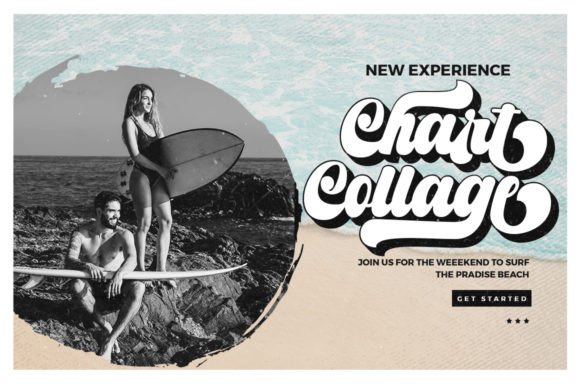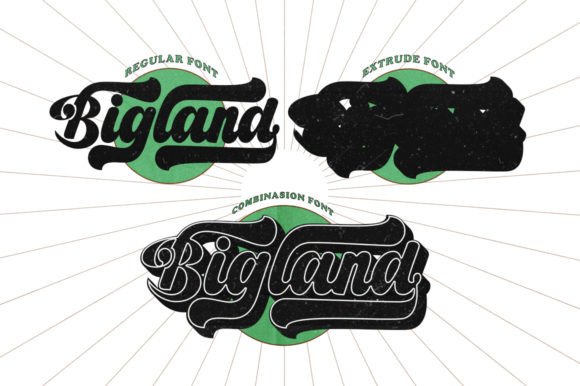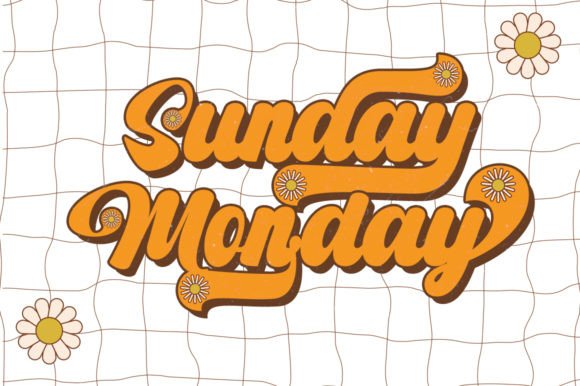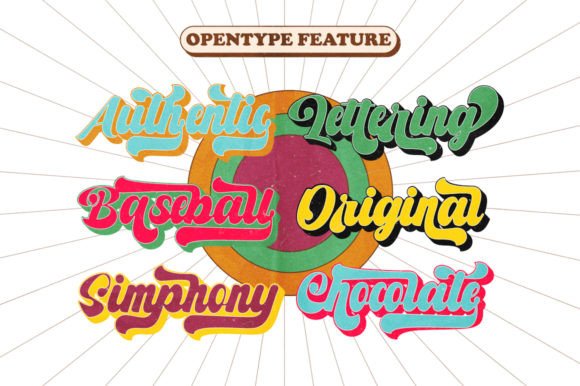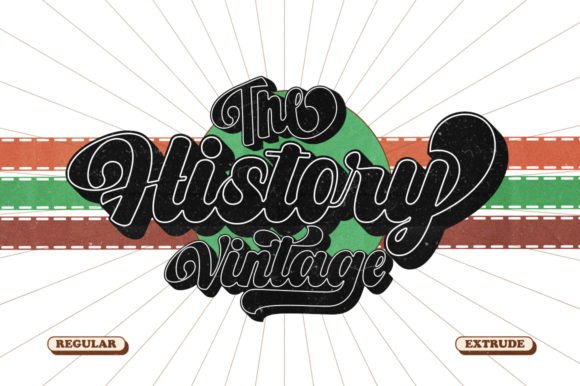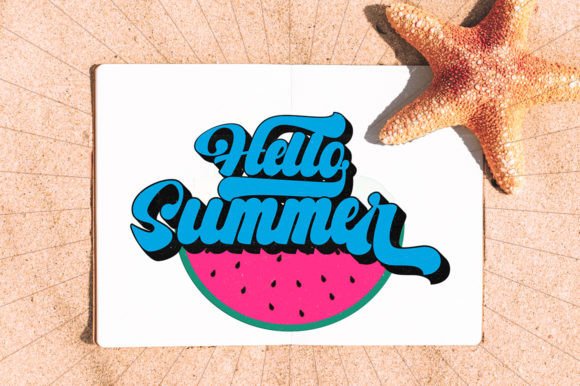
The Retro Revival: Bigland Retro Font Takes Center Stage
This urban retro font has a style reminiscent of logotype lettering, and it’s been a game-changer for my design projects ever since. In this article, I’ll share my honest review of Bigland Retro, a practical guide on how to use it, and some valuable insights into its features and alternatives.
- 💥 **Unique urban retro vibe**: Bigland Retro has a distinct style that’s perfect for branding, packaging, and advertising projects.
- ✅ **PUA encoded**: With PUA encoding, you can access all the glyphs and swashes with ease, making it a breeze to customize your designs.
- 🎨 **Highly versatile**: This font works well for both digital and print projects, from social media graphics to business cards and brochures.
- 🔥 **Attention-grabbing**: Bigland Retro is sure to make your designs stand out from the crowd, thanks to its bold and edgy style.
- ⚠️ **Limited use in formal contexts**: Due to its bold and playful nature, Bigland Retro might not be the best fit for formal or professional projects, such as academic papers or corporate reports.
- 🤔 **Requires some experimentation**: To get the most out of Bigland Retro, you’ll need to experiment with different glyphs, swashes, and OpenType features.
The Designer Inspiration Behind Bigland Retro
The story behind Bigland Retro is one of creative experimentation and inspiration. The font’s designer drew inspiration from urban landscapes, graffiti, and vintage typography. The result is a unique and captivating font that’s perfect for designers looking to add a touch of urban chic to their projects.
Q: What is PUA encoding, and how does it benefit Bigland Retro?
A: PUA (Private Use Area) encoding allows designers to access a wide range of glyphs and swashes, making it easier to customize and personalize their designs.
Q: Is Bigland Retro suitable for digital and print projects?
A: Absolutely! Bigland Retro works well for both digital and print projects, from social media graphics to business cards and brochures.
Q: Can I use Bigland Retro in combination with other fonts?
A: Yes, Bigland Retro can be paired with other fonts to create visually appealing combinations. Experiment with different font pairings to find the perfect match for your project.